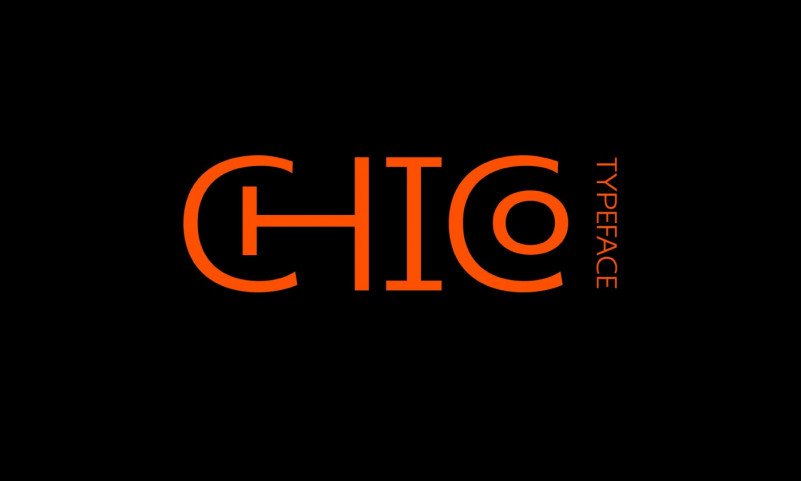
Chico Sans Serif Font
Hello everyone. Chico Sans Serif Font is a gorgeously unique sans typeface that combines perfect readability with a clean and modernist lettering design. This typeface is versatile display font that was designed by Tapiwanashe Sebastian Garikayi. Its wide structure, ligatures and alternate characters makes it a great font for logos and poster headlines.